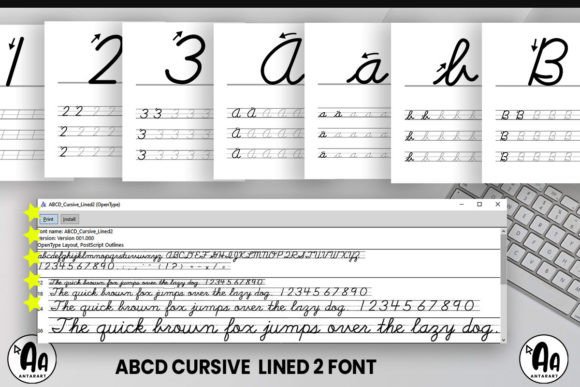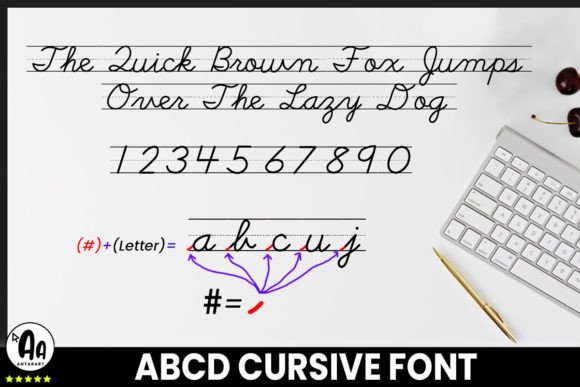
Introducing Abcd Cursive Lined2 Font: Revolutionize Your Handwriting Practice with a Ruled Font
Are you a designer, crafter, or educator looking for a fun and interactive way to teach or learn cursive handwriting? Look no further than the Abcd Cursive Lined2 (Ruled) Font. This innovative handwritten font is designed to help you create thousands of worksheets using any software, making it an excellent learning resource for those who want to master cursive handwriting.
What is Abcd Cursive Lined2 Font?
The Abcd Cursive Lined2 Font is a unique, cursive font that features ruled lines, mimicking the look of traditional handwriting paper. This font is specifically designed to help individuals learn and practice cursive handwriting in an enjoyable and interactive way. With its clear and concise letterforms, the Abcd Cursive Lined2 Font is perfect for creating worksheets, handwriting practice sheets, and other educational materials.
Key Features of Abcd Cursive Lined2 Font
- Ruled Lines: The font features ruled lines, providing a guide for users to practice their handwriting.
- Handwritten Style: The font has a natural, handwritten look, making it perfect for creating worksheets that mimic traditional handwriting practice.
- Compatible with Any Software: The Abcd Cursive Lined2 Font can be used with any software, making it easy to create custom worksheets and handwriting practice sheets.
- Interactive Learning: The font enables interactive learning, allowing users to practice cursive handwriting in a fun and engaging way.
The Abcd Cursive Lined2 Font offers numerous benefits for designers and crafters. With this font, you can:
- Create Custom Worksheets: Design custom worksheets for clients or students, tailored to their specific needs.
- Develop Educational Materials: Create engaging educational materials, such as handwriting practice sheets, worksheets, and activity sheets.
- Enhance Your Designs: Add a personal touch to your designs with the Abcd Cursive Lined2 Font, perfect for creating invitations, greeting cards, and other paper crafts.
Tips for Using Abcd Cursive Lined2 Font
To get the most out of the Abcd Cursive Lined2 Font, consider the following tips:
- Experiment with Different Software: Try using the font with different software, such as Microsoft Word, Google Docs, or Adobe Illustrator.
- Adjust Font Size: Adjust the font size to suit your needs, ensuring that the ruled lines are clear and easy to follow.
- Combine with Other Fonts: Combine the Abcd Cursive Lined2 Font with other fonts to create visually appealing and engaging worksheets.
| Font Name | Abcd Cursive Lined2 Font |
| Author | AntarArt |
The Abcd Cursive Lined2 (Ruled) Font is an excellent resource for designers, crafters, and educators looking to create engaging and interactive handwriting practice materials. With its unique ruled lines and handwritten style, this font is perfect for teaching or learning cursive handwriting. Whether you’re creating custom worksheets, educational materials, or paper crafts, the Abcd Cursive Lined2 Font is an essential tool to have in your design arsenal.